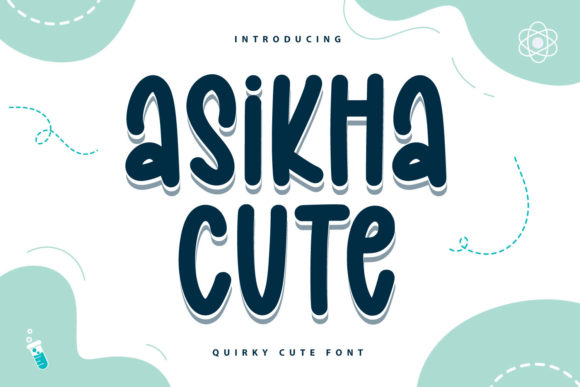
Step into the enchanting realm of Asikha Cute, a font that exudes charm and playfulness like no other. Every letter is a whimsical dance on the page, a stroke of magic that adds a dash of whimsy to any project. With its amiable nature, Asikha Cute is the perfect choice for adding a touch of whimsy and charm to your creative endeavors.
Unleash your imagination and let your words take on a life of their own. Whether you're writing a personal journal, crafting a heartfelt letter, or designing a captivating poster, Asikha Cute provides the ideal canvas for expression. Its endearing curves and playful strokes create a visual symphony that captivates the eyes, leaving your audience spellbound.
Experience the ease and beauty of writing with Asikha Cute. Its smooth flow and effortless readability make it a joy to use, ensuring that your words glide effortlessly across the page. Say goodbye to tedious editing and embrace the seamless flow of creativity as your thoughts and emotions find their perfect match in Asikha Cute's enchanting embrace.
Whether you're an artist, a designer, or simply someone who appreciates the beauty of handwritten art, Asikha Cute is the perfect companion for your creative journey. Dive into the world of imagination and let this remarkable font lead you to new heights of expressiveness.